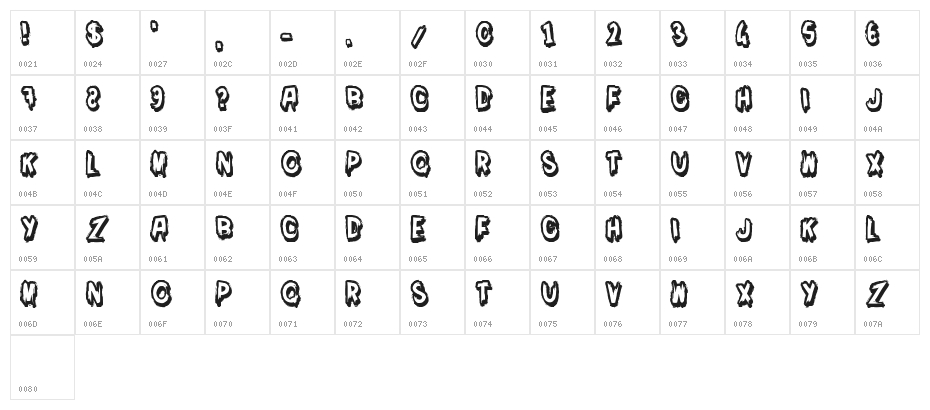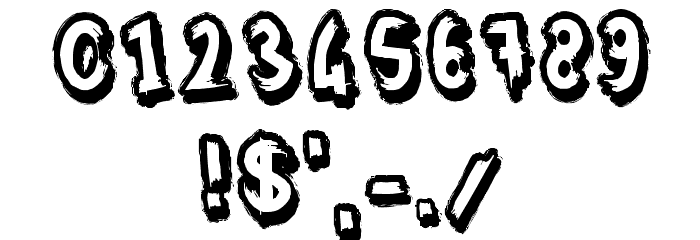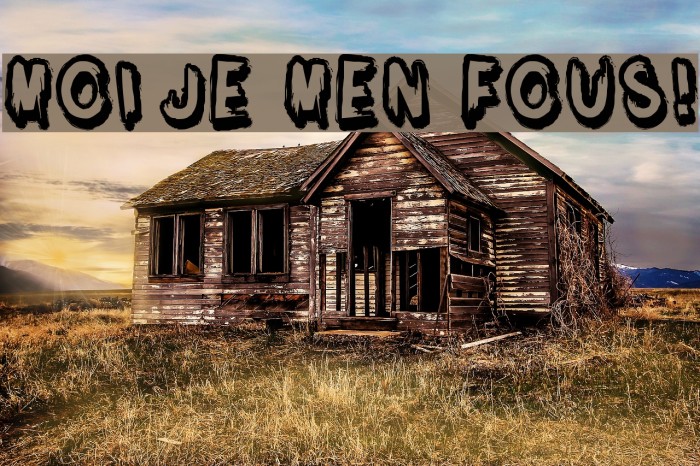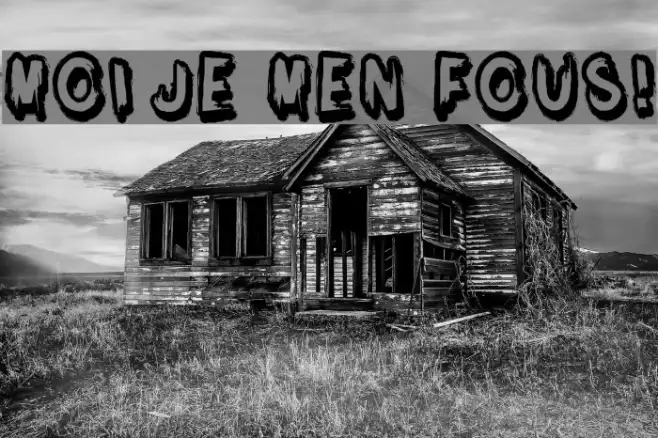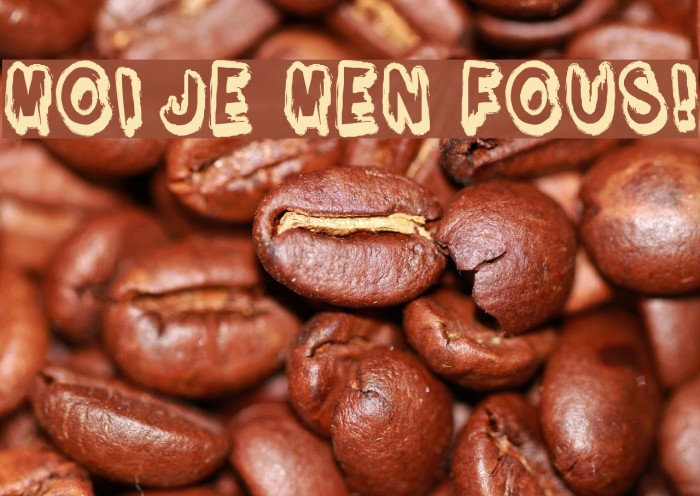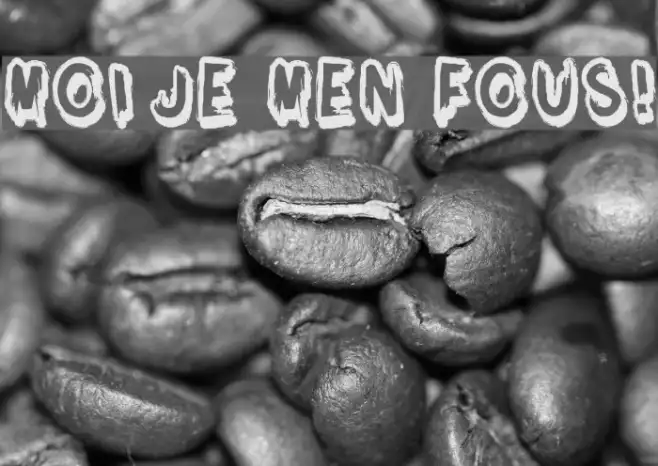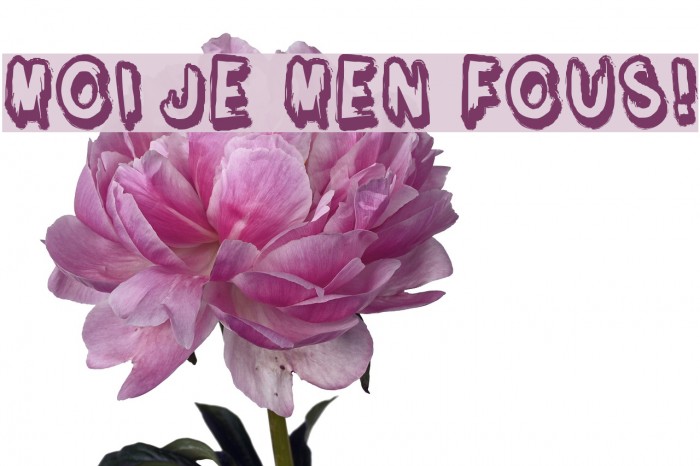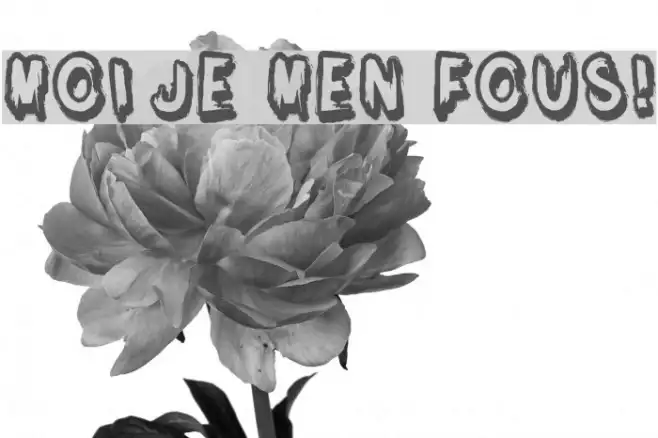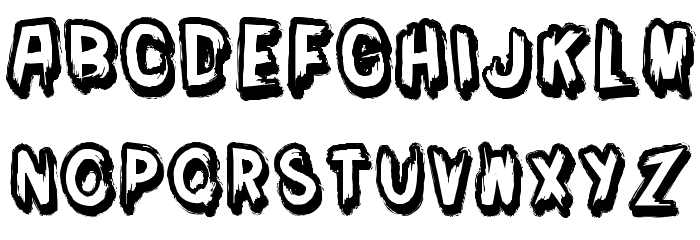
Moi je men fous! Font
Moi je men fous! Description
This font features a bold, graffiti-inspired style with a rough, hand-drawn appearance. The characters are outlined with a thick, uneven stroke that gives them a dynamic and energetic feel. The uppercase and lowercase letters maintain a consistent style, with exaggerated curves and angles that add to the font's playful and rebellious character. The numbers and special characters follow the same design principles, ensuring a cohesive look across all elements. This font's unique aesthetic makes it stand out, ideal for projects that require a bold statement.
| Overall Style | Modern, Urban |
| Proposed Projects | Ideal for street art designs, music album covers, urban-themed posters, and edgy branding projects. |